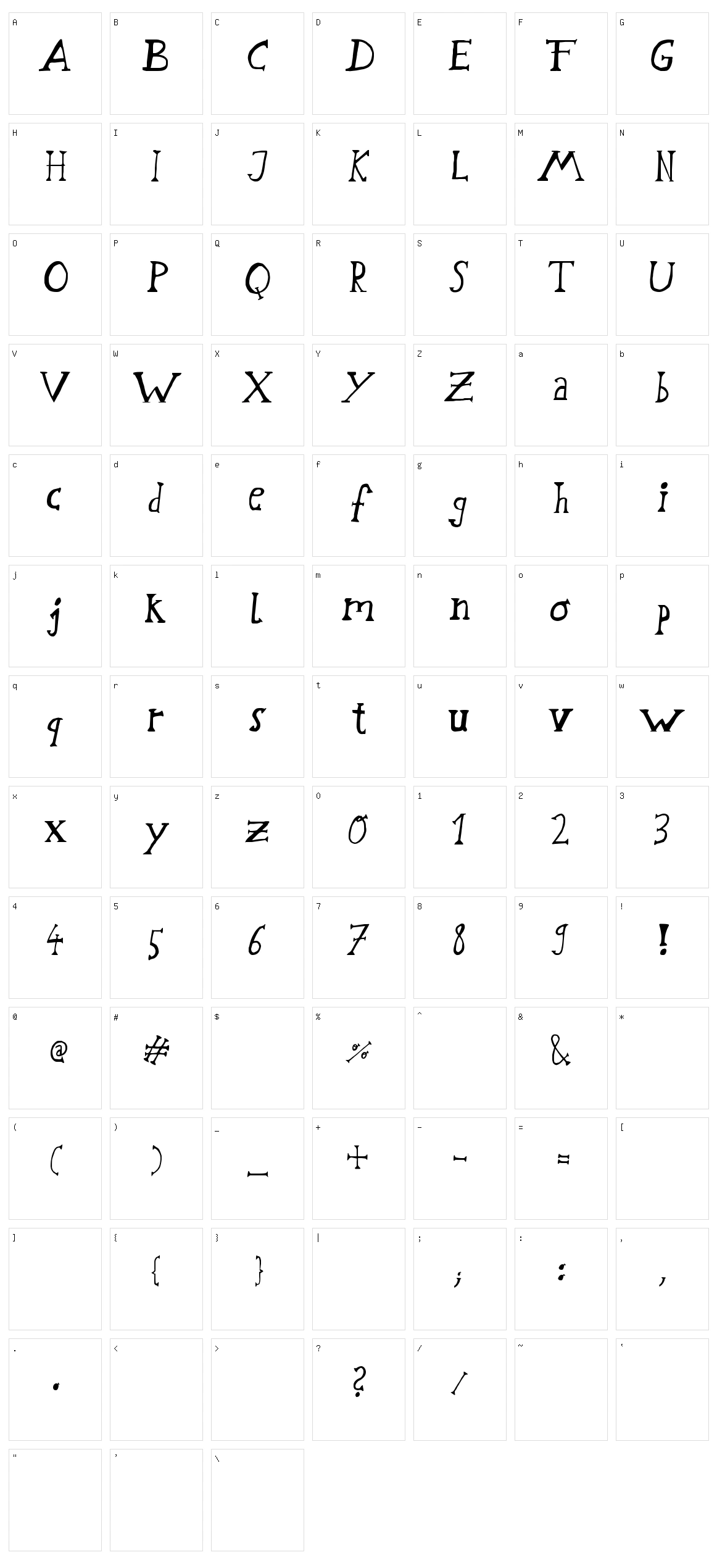
The free font Schwabstrasse is carefully designed by thisisjames, showcasing a thoughtful balance of creativity and usability and falls under the Cartoon font style. When you download the ZIP file, it contains only 16 KB of font files, making it lightweight and quick to download. Please review the license details below to understand permitted usage and distribution rights. If license information is not available, we recommend using this font for personal projects only or contacting the author directly for commercial usage permissions.